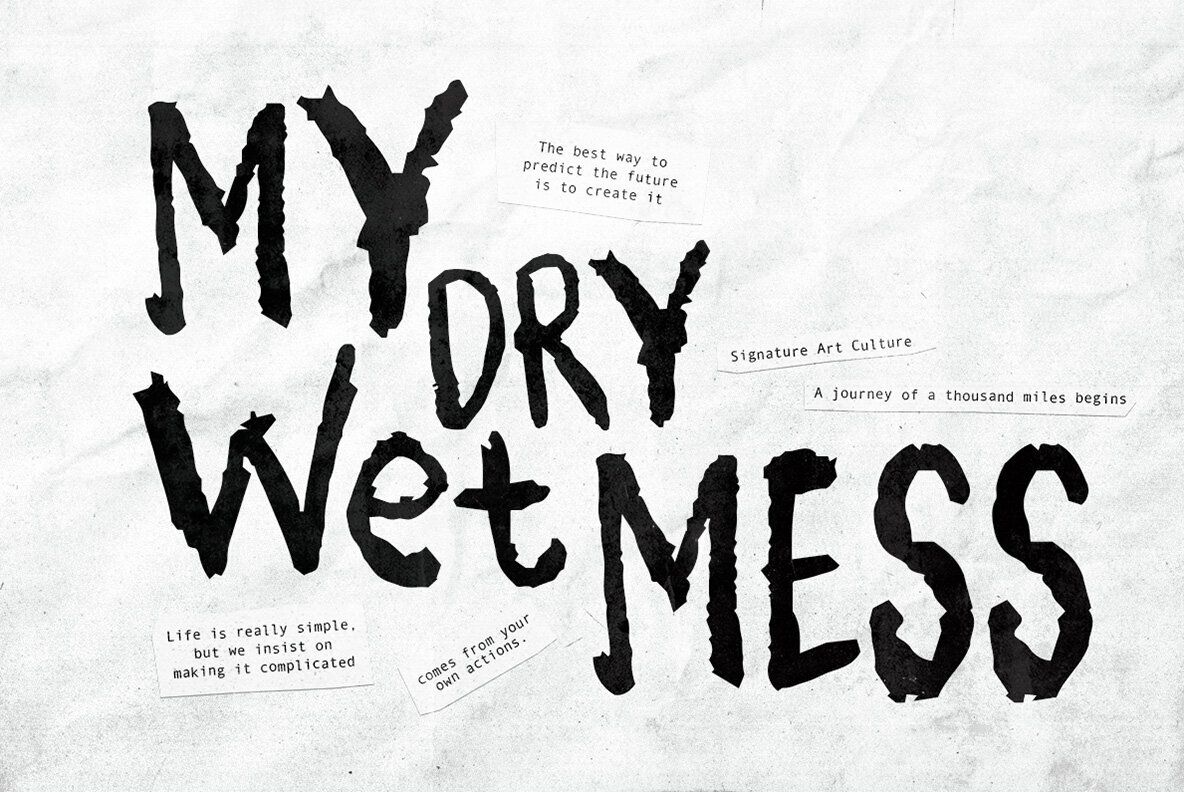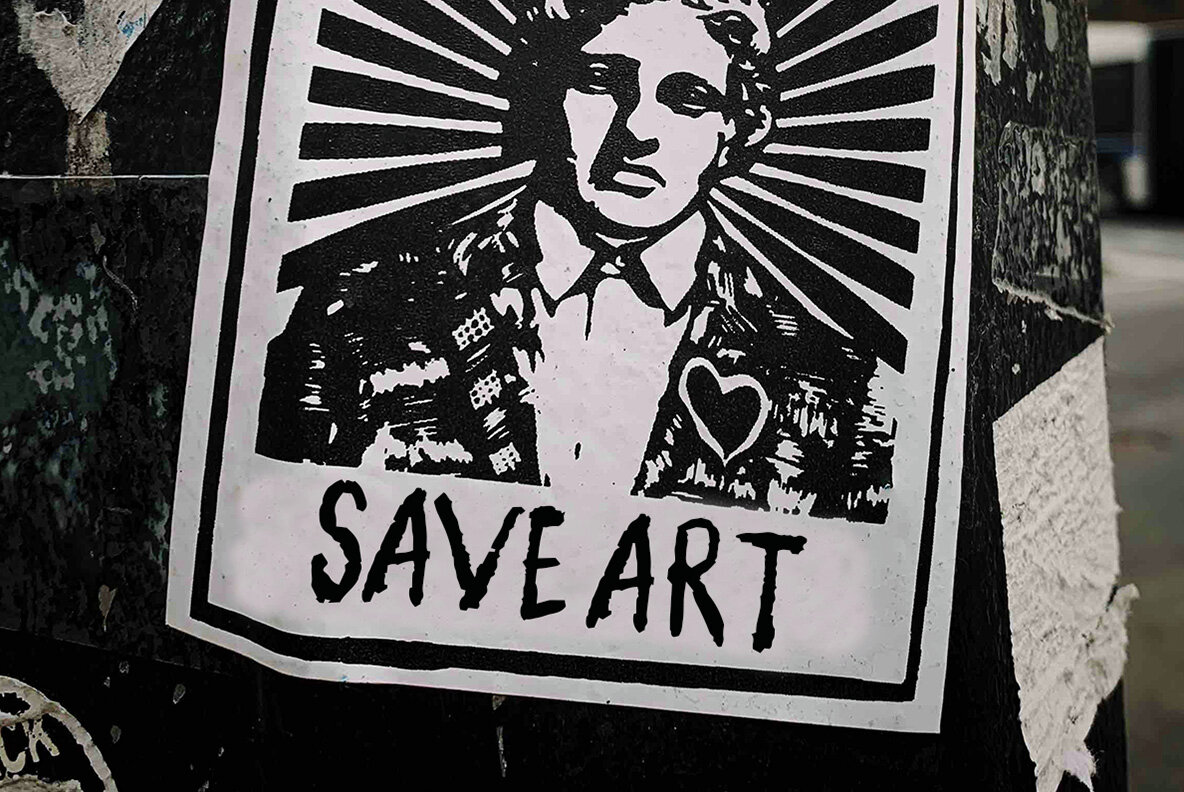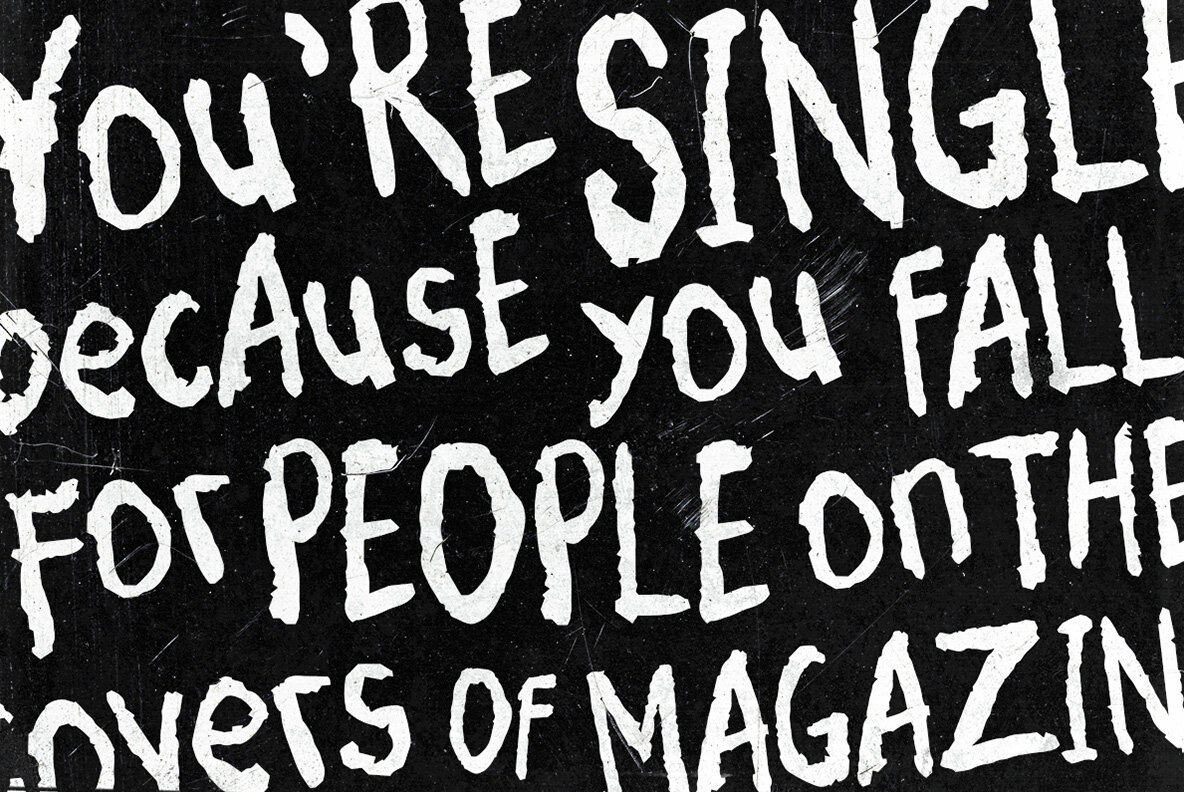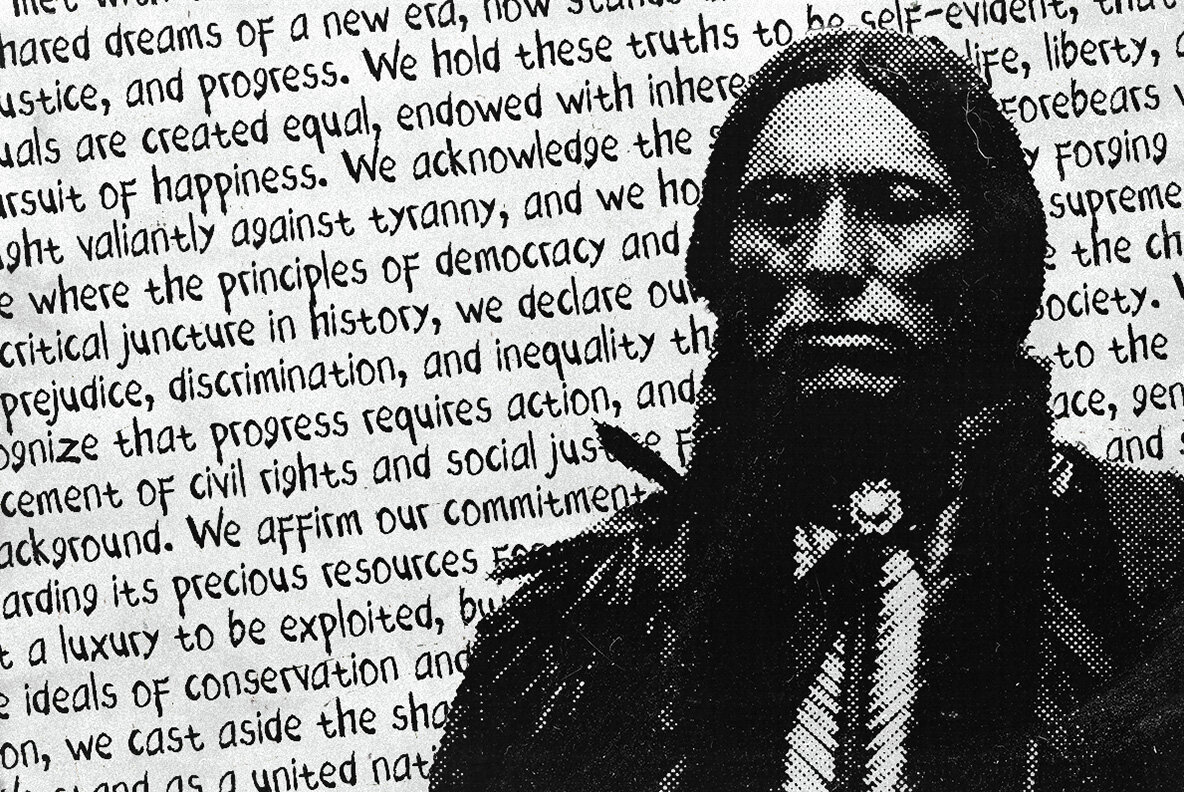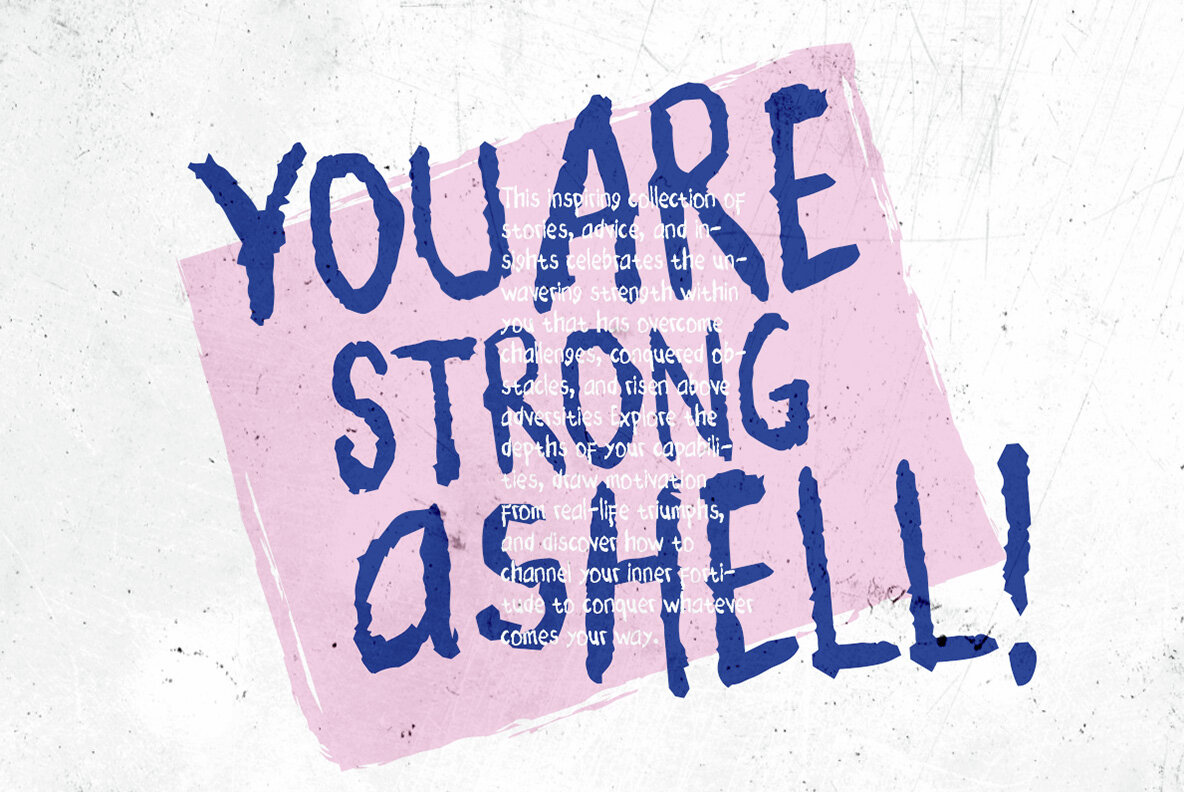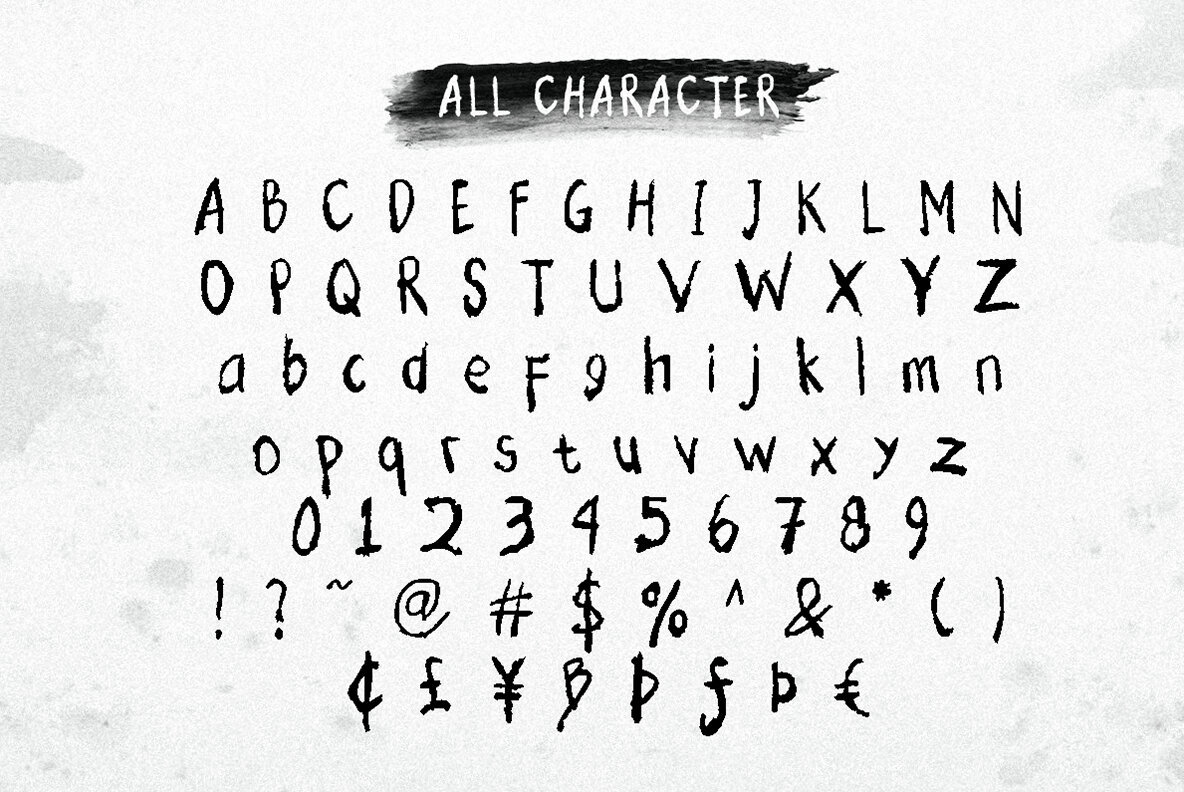
Awry Font
Awry Regular
Awry is a charming and whimsical handwritten font that masterfully balances between structured precision and intriguing disorder. Its unique design encourages exploration beyond traditional typography, transforming imperfection into an artistic expression.Awry: Quirky Handwritten Font
Features of Awry